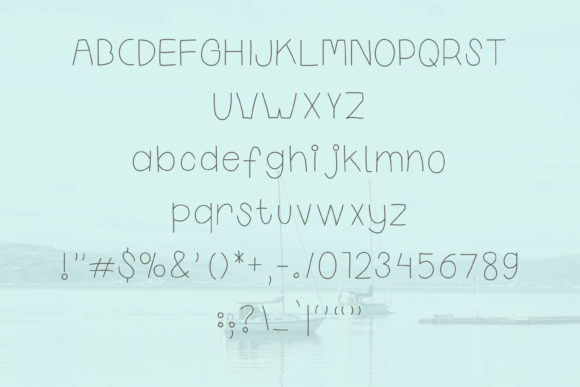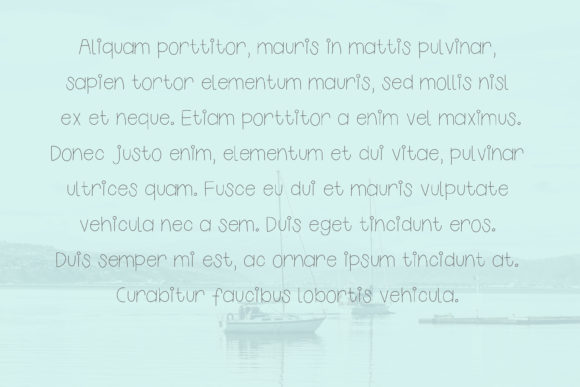
Introduction to Quatralia Font
As designers, we’ve all been there – staring at a blank page, trying to bring a creative project to life. The perfect font can make all the difference, setting the tone and style for the entire design. And, sometimes, it’s that one special font that sparks the magic. For me, it was the Quatralia Font – a sweet and friendly handwritten font that instantly captured my attention.
What I love about Quatralia Font is its natural and unique style, which makes it incredibly versatile and fitting to a wide range of designs. Whether you’re working on a high-quality brochure or a simple social media post, this font is sure to bring a touch of warmth and personality to your project.
Key Features of Quatralia Font
- Unique, high-quality font design with a modern aesthetic, ideal for creative projects and design resources.
- Quatralia Font offers a transparent background, making it perfect for use on any design surface.
- High-resolution font, suitable for print and digital applications, with a resolution of 300 DPI or higher.
- Comes in a single weight, but with multiple styles, allowing for versatility and customization in design projects.
- Perfect for use in creative projects, such as logos, branding, and graphic design, due to its modern and sleek appearance.
Honest Review: Quatralia Font
I recently stumbled upon the Quatralia Font, a free download that caught my attention with its unique design and versatility. As a designer, I’m always on the lookout for high-quality design resources that can elevate my creative projects.
What works well for the Quatralia Font is its wide range of uses. It’s suitable for headings, titles, and body text, making it a great addition to any design project. The font also features a transparent background, which allows for seamless integration with other design elements.
- ✨ Unique and creative design
- ✨ Versatile and suitable for various design projects
However, I do have a few limitations in mind. The Quatralia Font may not be suitable for large-scale commercial use, and some users may find the font’s design to be too experimental for their taste.
Overall, I’m impressed with the Quatralia Font’s potential and its ability to add a unique touch to creative projects. If you’re looking for a high-quality design resource that’s free to download, the Quatralia Font is definitely worth checking out.
Quatralia Font is commonly used for creative projects, such as branding, marketing materials, and website design. Its transparent background and high-quality design make it a versatile design resource.